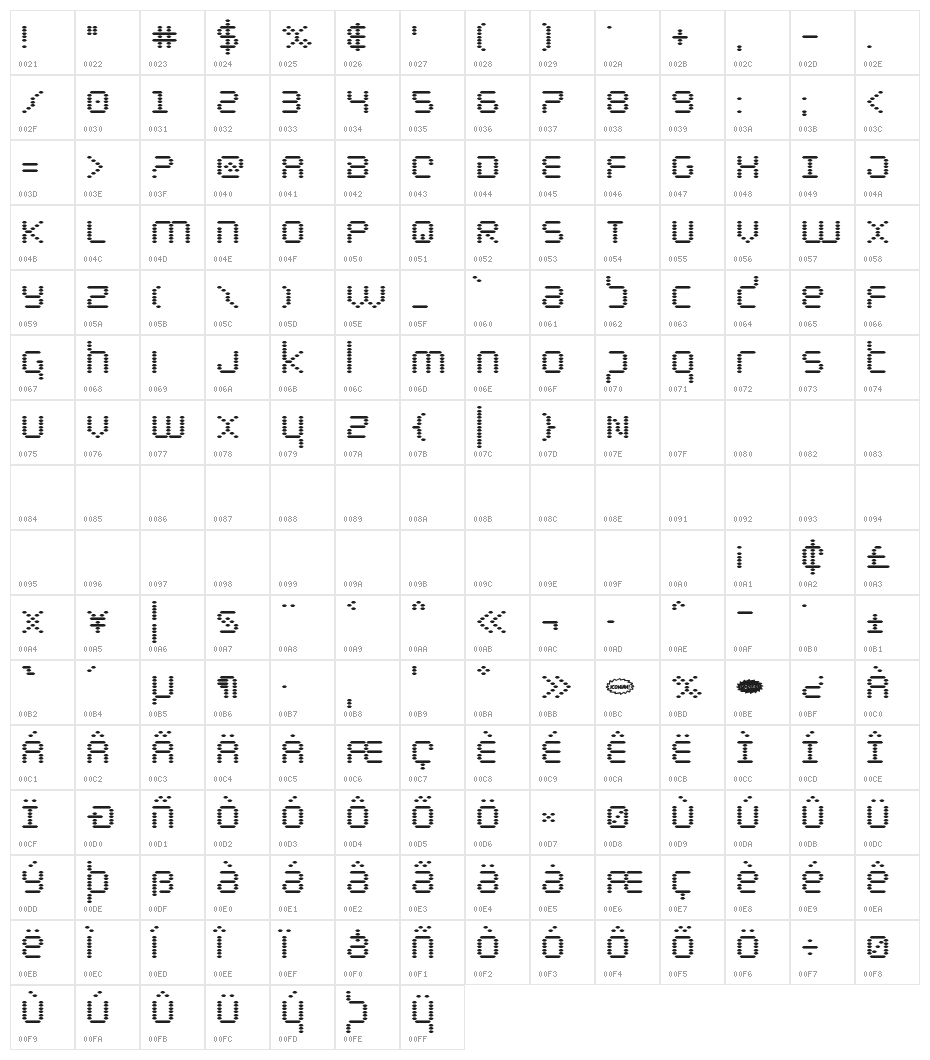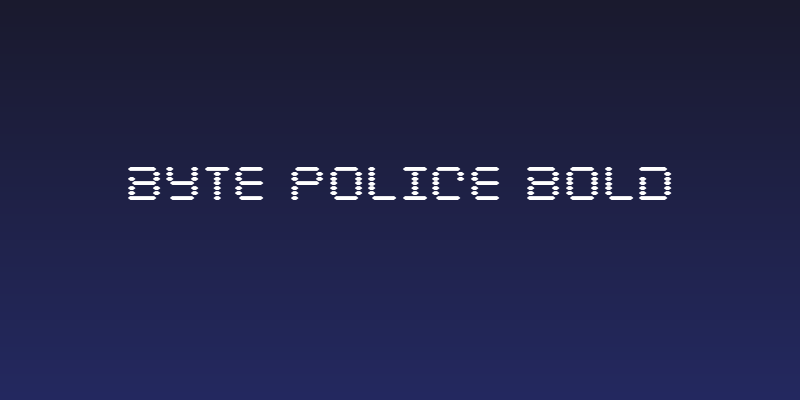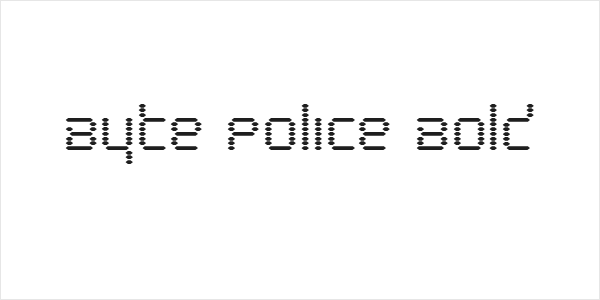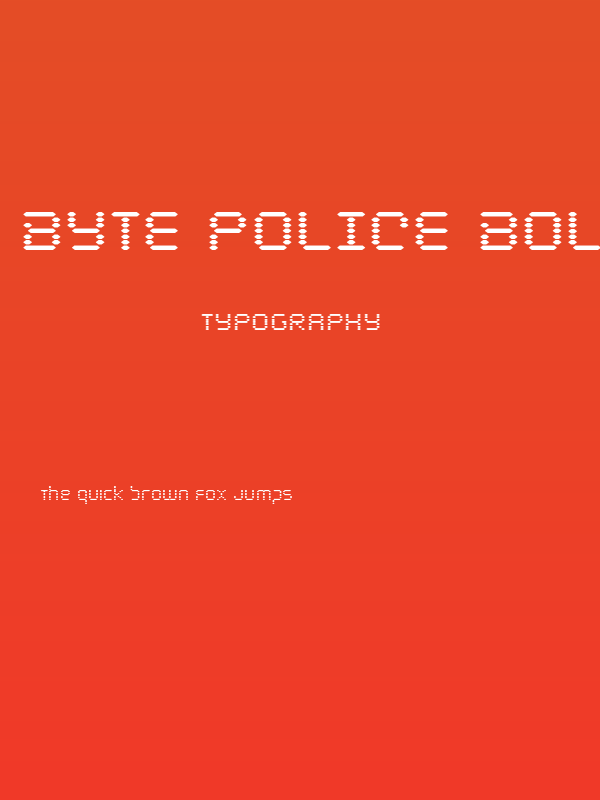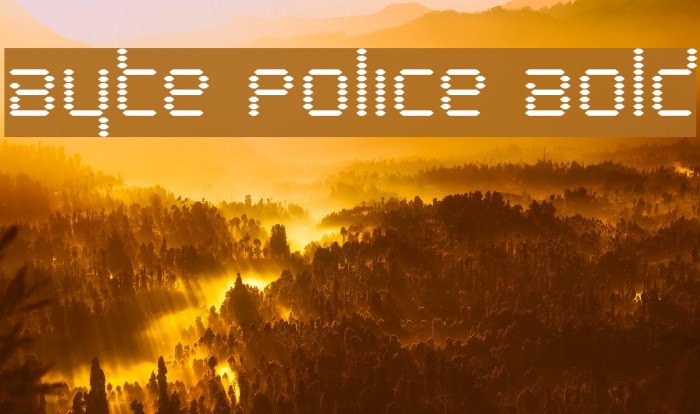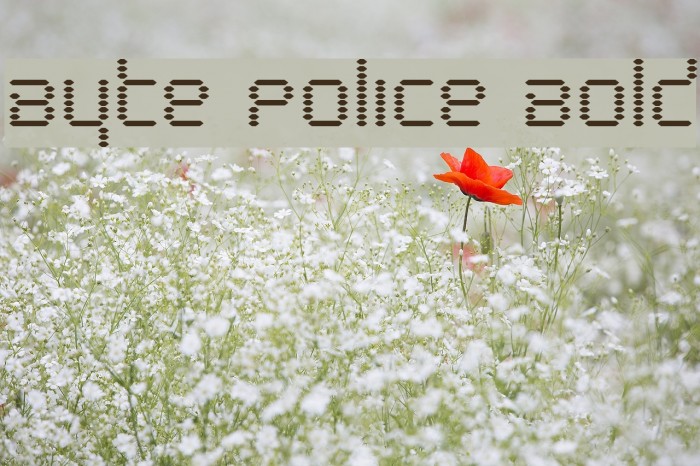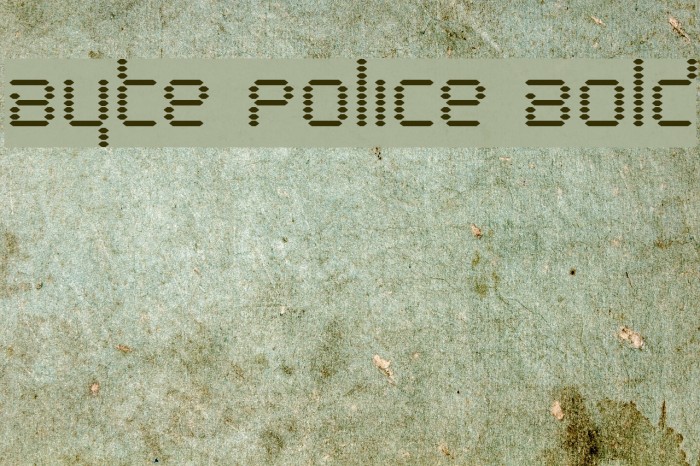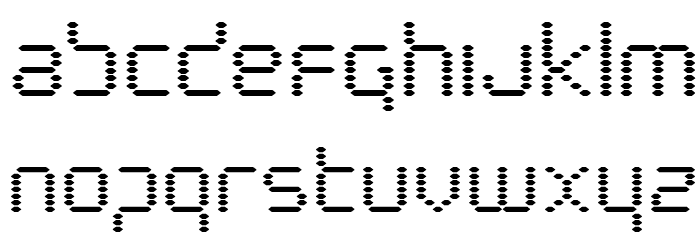
Byte Police Bold Font
Byte Police Bold Description
This font features a unique dot matrix style, reminiscent of digital displays and retro computing aesthetics. Each character is composed of a series of evenly spaced dots, creating a pixelated effect that is both modern and nostalgic. The uniformity of the dots provides a consistent texture across all characters, while the geometric shapes maintain legibility. This design is particularly striking in larger sizes, where the dot pattern becomes a prominent visual element. The font's playful yet structured appearance makes it suitable for creative and tech-oriented projects.